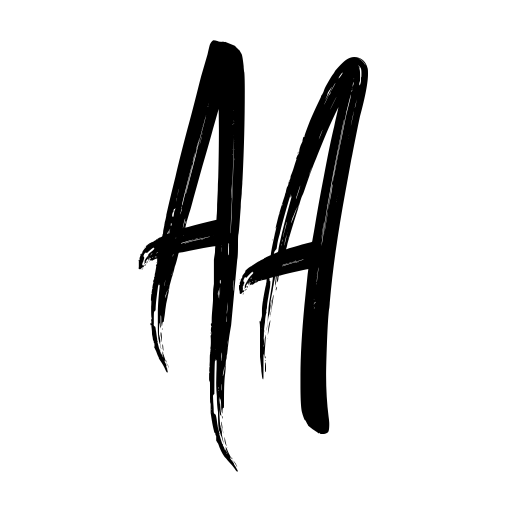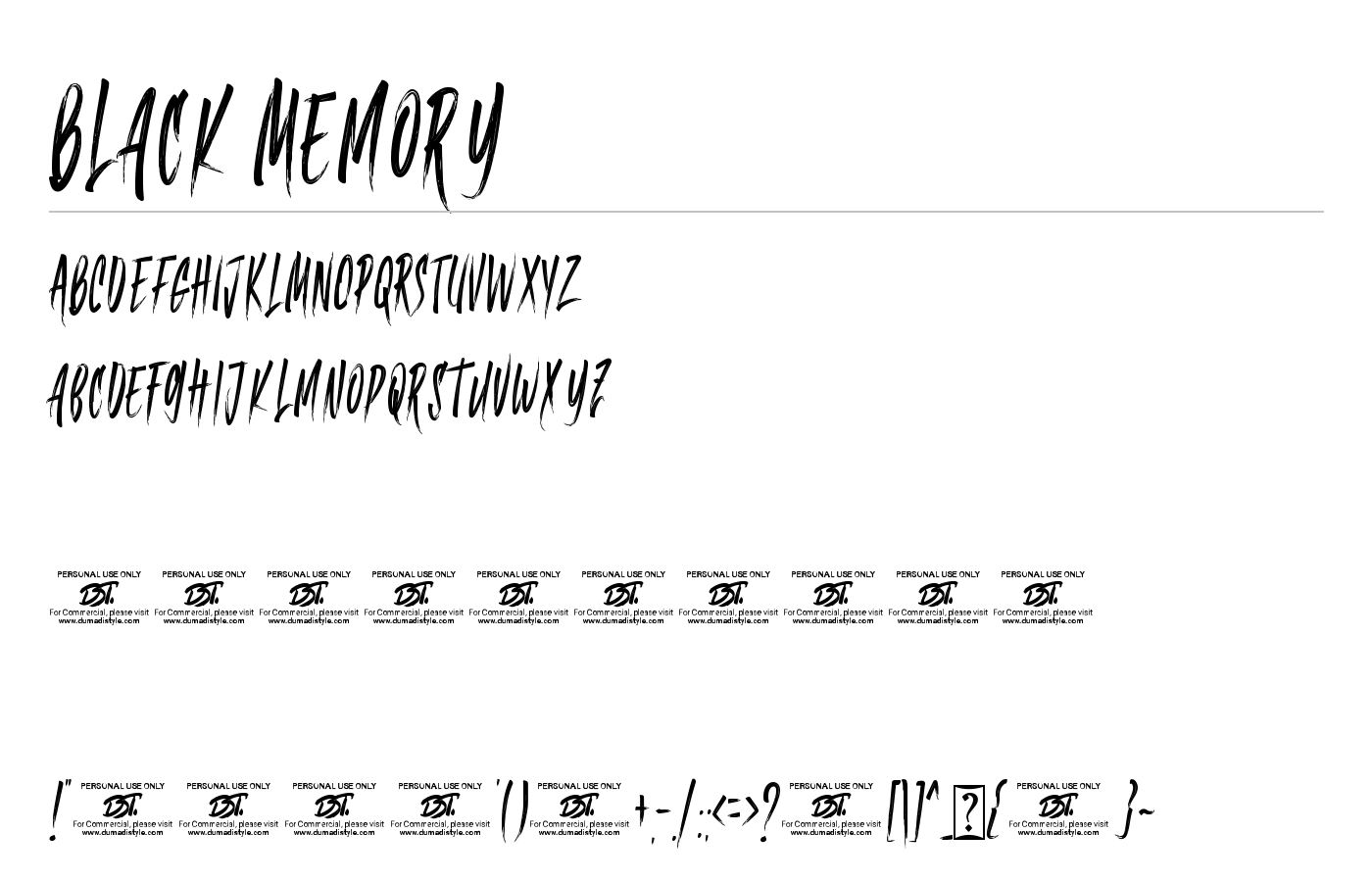
Black Memory Font is a bold, narrow handwritten script with a rough, textured stroke that evokes an edgy and dynamic feel. Its tall, slightly irregular letterforms and expressive brush-like style make it perfect for creative designs, branding, or headlines where a strong, artistic impact is desired. This font works well in modern, youthful projects that want to convey energy and individuality.
Black Memory Font
About Black Memory Font
| Font family | Black Memory Font |
| Designer | Toni Dzulham |